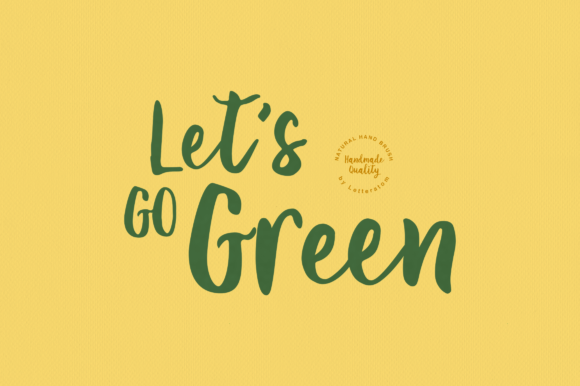
Immerse yourself in the splendor of nature with Let's Go Green, a font that exudes authenticity and charm. Handcrafted with the utmost care, this script font captivates with its organic brush strokes and ink-on-paper texture, evoking a sense of connection with the natural world.
With Let's Go Green, your designs will blossom with a refreshing and inviting aura. Its casual elegance adds a touch of whimsy and playfulness to logos, quotes, packaging, advertising, and social media posts, making it a versatile choice for a wide range of creative projects.
Unleash your creativity and embark on a journey of visual storytelling with Let's Go Green. Each letter dances across the page with a unique personality, adding a touch of individuality and charm to your designs. Whether you're crafting a heartfelt quote, designing a captivating logo, or creating eye-catching advertisements, Let's Go Green will elevate your projects to new heights.
Let the organic beauty of Let's Go Green inspire your designs and captivate your audience. Its natural flow and effortless style create a welcoming ambiance that resonates with viewers, leaving a lasting impression that lingers in their minds.